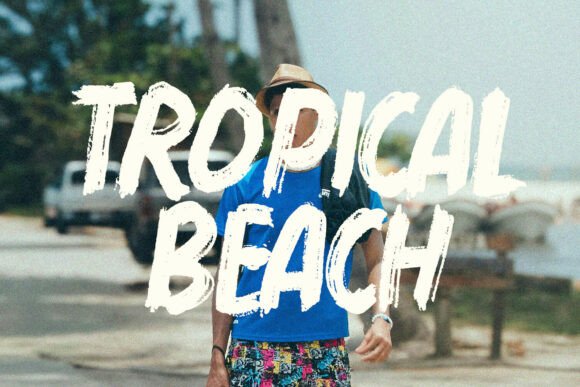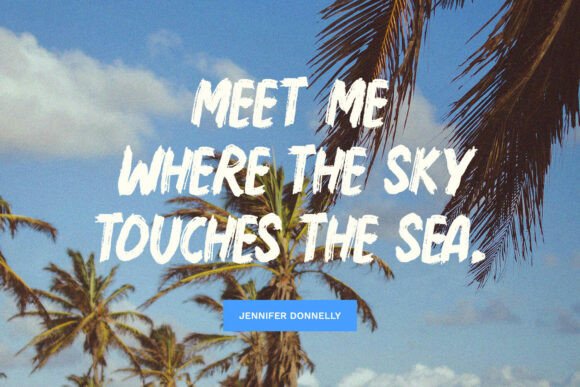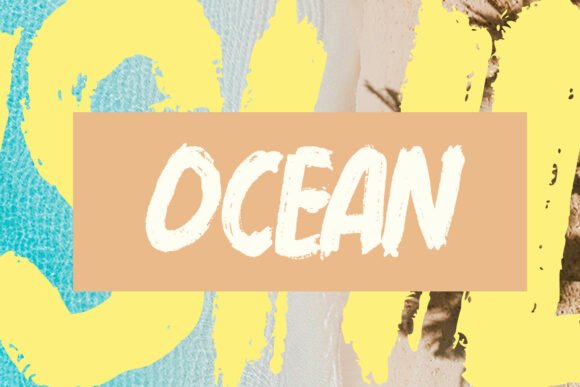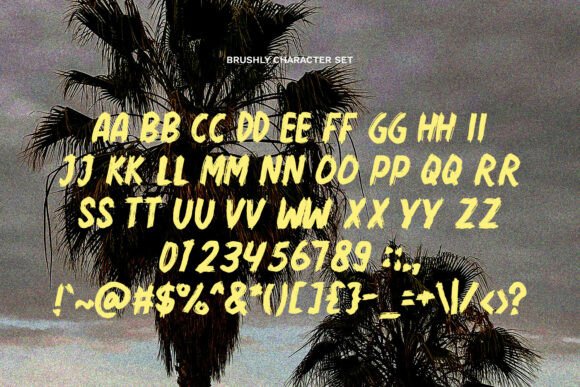
Introducing Brushly Font: The Ultimate Festive Holiday Brush Font
Are you looking for a font that captures the warmth, joy, and excitement of seasonal celebrations? Look no further than Brushly, a festive holiday brush font designed to bring a cheerful and expressive character to your designs. With its lively hand-painted strokes and playful texture, Brushly is perfect for holiday branding, greeting cards, invitations, social media graphics, event promotions, and seasonal headlines.
What Makes Brushly Special?
Brushly is more than just a font – it’s an experience. Its handcrafted feel and bold, readable design make it perfect for grabbing attention and conveying the festive spirit of the holiday season. Whether you’re designing a holiday greeting card, creating a social media graphic, or promoting a seasonal event, Brushly delivers a warm and inviting feel that’s sure to delight.
Key Features of Brushly Font
- Lively Hand-Painted Strokes: Brushly’s hand-painted strokes give it a unique and playful texture that’s perfect for capturing the excitement of the holiday season.
- Playful Texture: The font’s texture adds a layer of depth and visual interest to your designs, making them stand out from the crowd.
- Bold and Readable: Despite its playful feel, Brushly is bold and readable, making it perfect for headlines, titles, and other applications where you want to make a statement.
- Festive Spirit: Brushly is designed to capture the festive spirit of the holiday season, making it perfect for holiday branding, greeting cards, and other seasonal designs.
Use Cases for Brushly Font
Brushly is a versatile font that can be used in a variety of applications, including:
- Holiday Branding: Use Brushly to create a festive and memorable brand identity for your holiday promotions.
- Greeting Cards: Add a personal touch to your holiday greeting cards with Brushly’s playful and cheerful design.
- Invitations: Create festive and inviting invitations for holiday parties, events, and celebrations.
- Social Media Graphics: Use Brushly to create eye-catching social media graphics that capture the spirit of the holiday season.
- Event Promotions: Promote your holiday events with Brushly’s bold and attention-grabbing design.
- Seasonal Headlines: Add a festive touch to your headlines with Brushly’s playful and cheerful design.
Tips for Using Brushly Font
- Experiment with Colors: Brushly looks great in a variety of colors, so don’t be afraid to experiment and find the perfect hue for your design.
- Mix and Match: Combine Brushly with other fonts to create a unique and visually interesting design.
- Play with Texture: Brushly’s texture is one of its standout features, so don’t be afraid to play with it and see what effects you can create.
Brushly is a festive holiday brush font that’s perfect for designers and crafters looking to add a touch of warmth and joy to their designs. With its lively hand-painted strokes, playful texture, and bold, readable design, Brushly is sure to become a go-to font for holiday branding, greeting cards, invitations, social media graphics, event promotions, and seasonal headlines. So why wait? Download Brushly today and start creating your own festive and memorable designs!